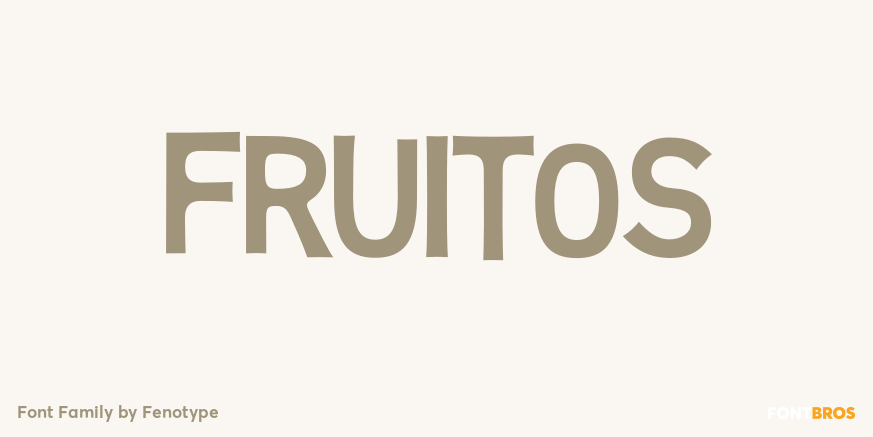
Fruitos
About Fruitos
Fruitos is funky font family with loads of interlocking ligatures. Fruitos is great for packaging, posters or any display use. Fruitos is divided into two families: Fruitos R (regular) is bouncy and has wider \’serifs? whereas Fruitos S (straight) makes…